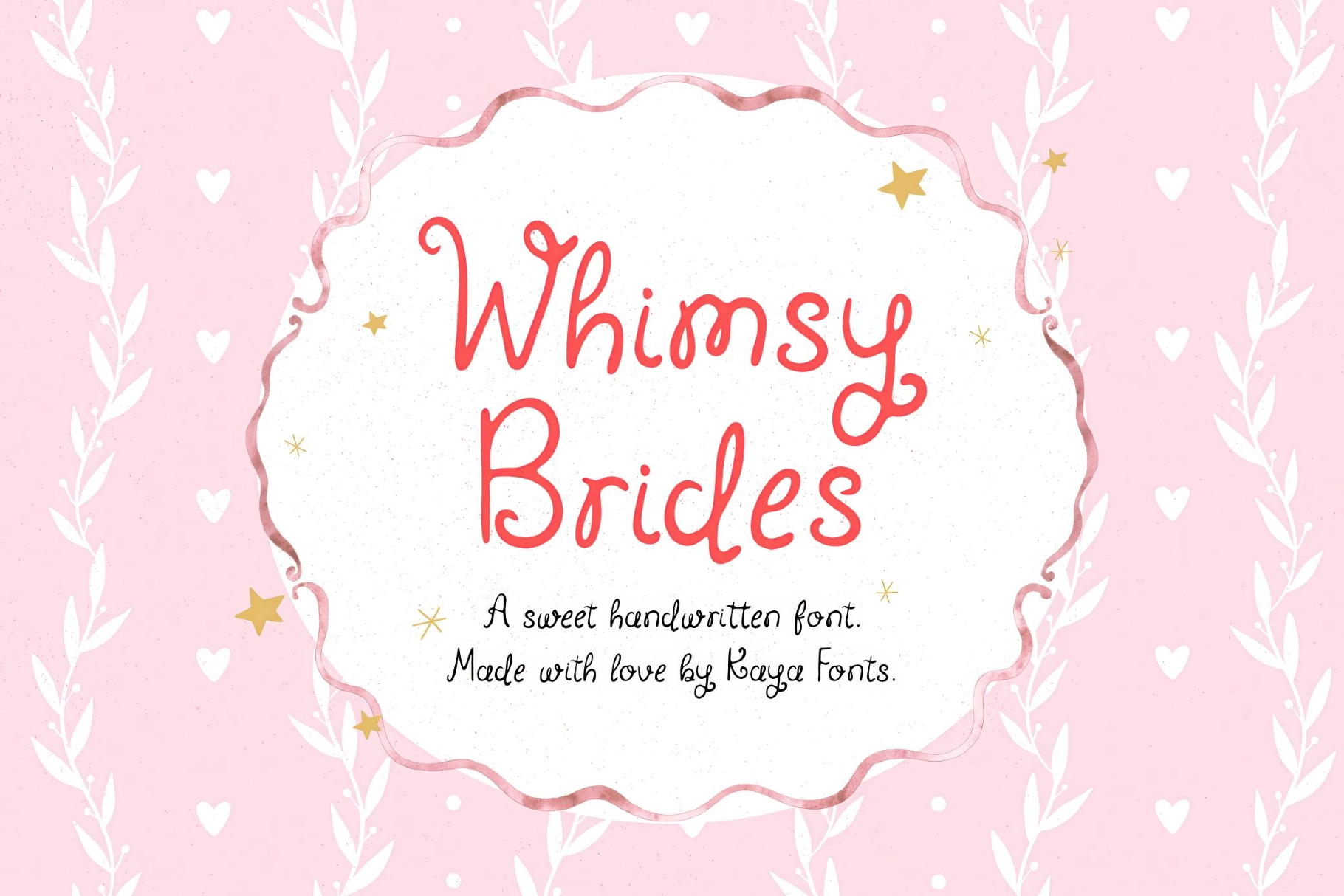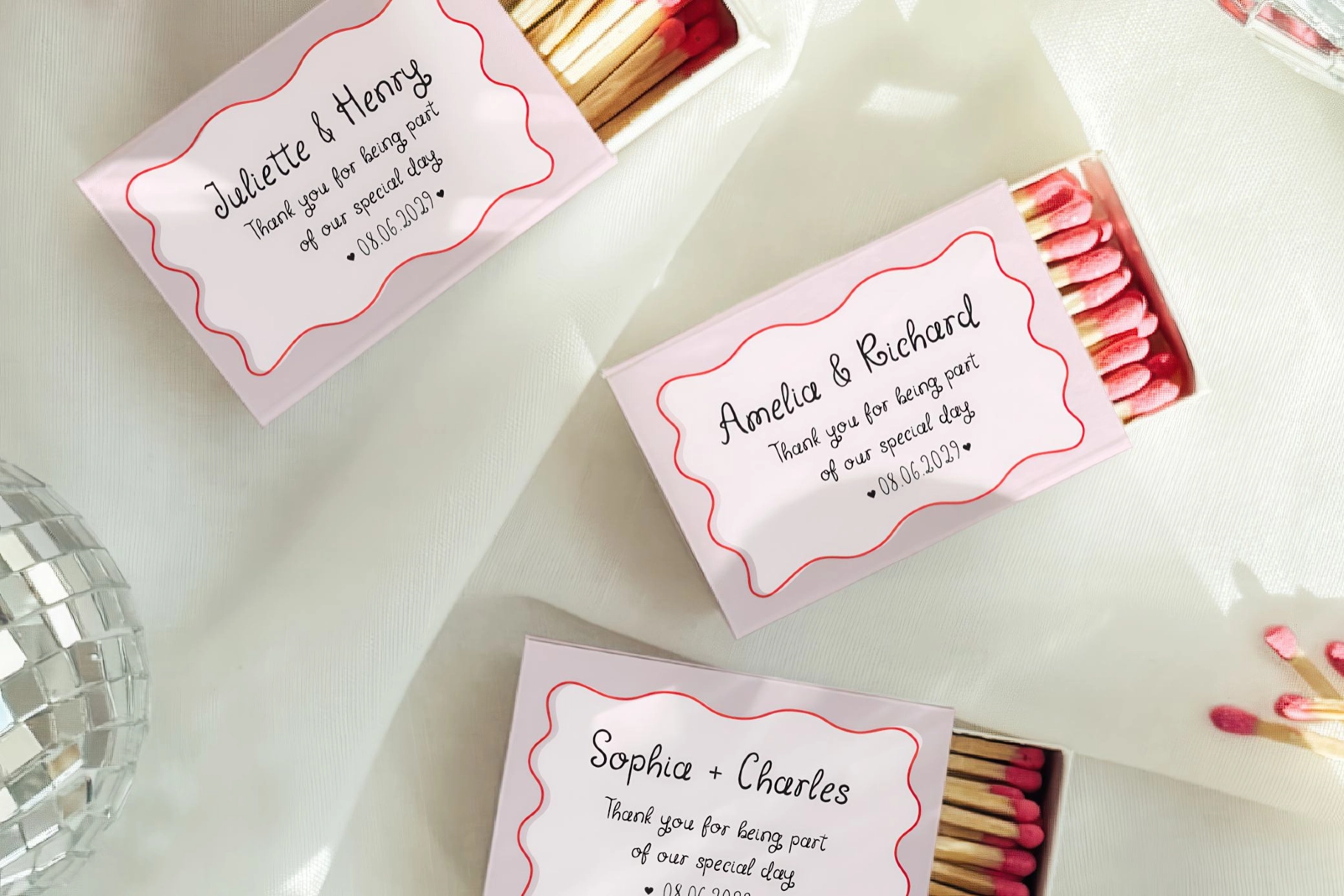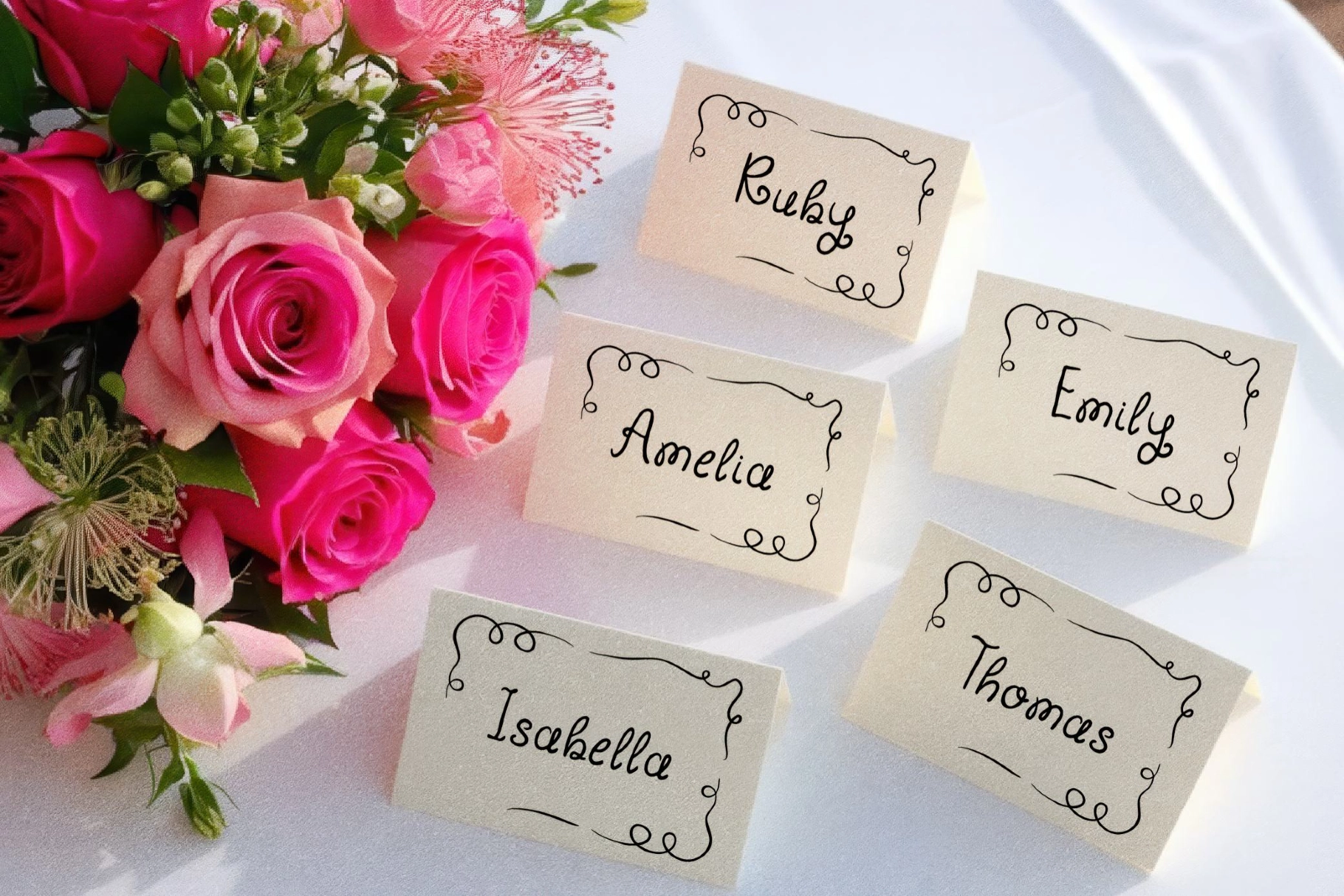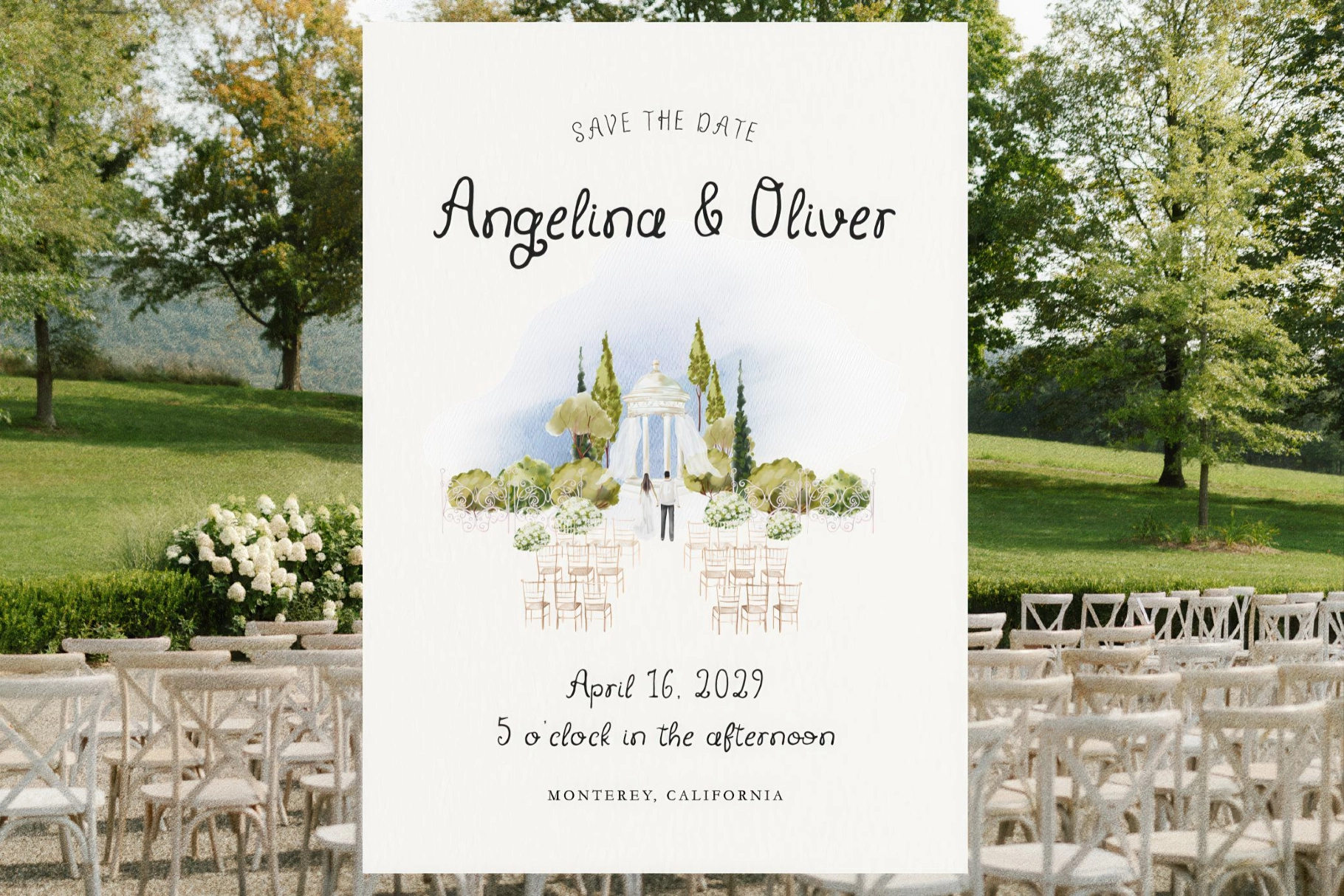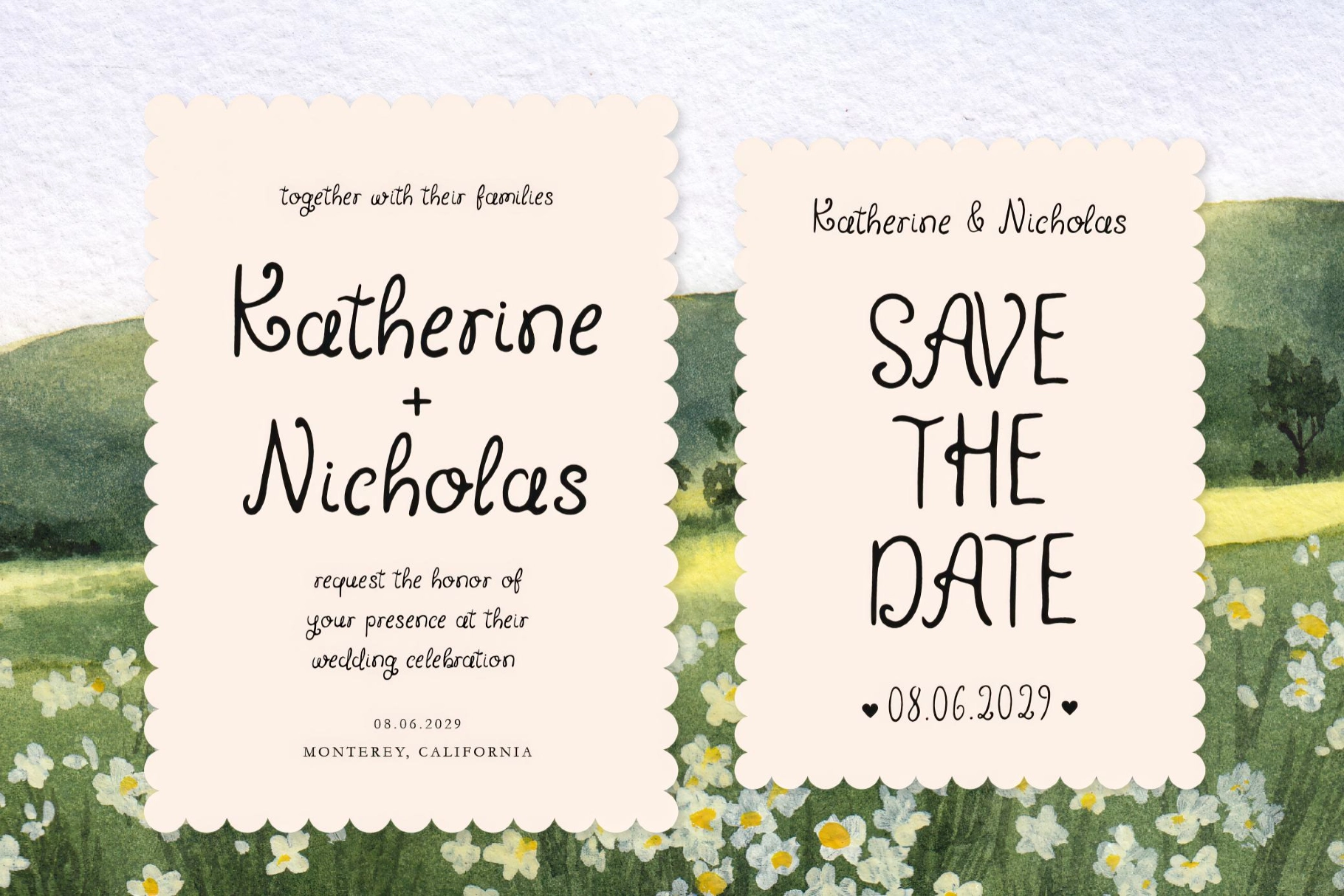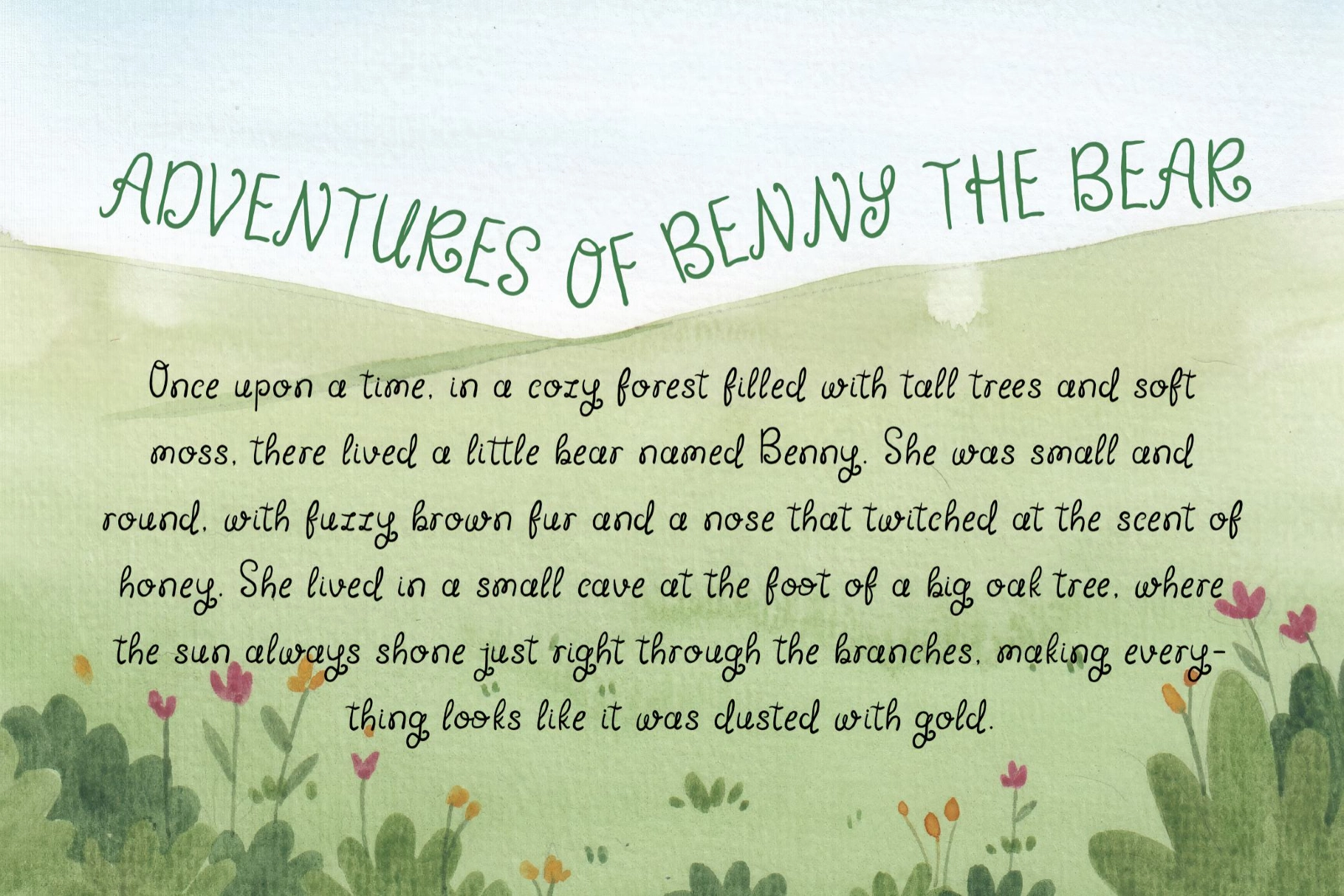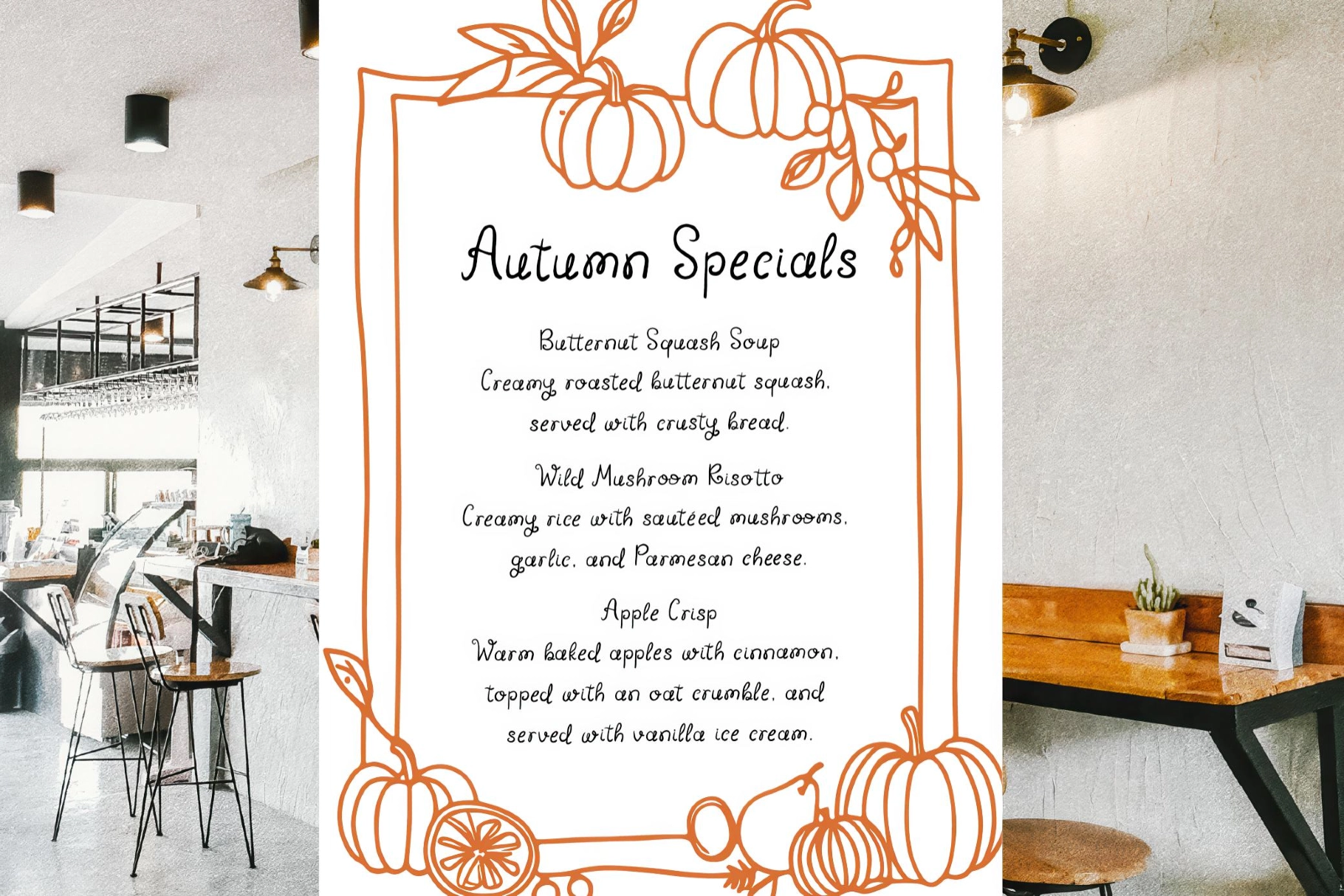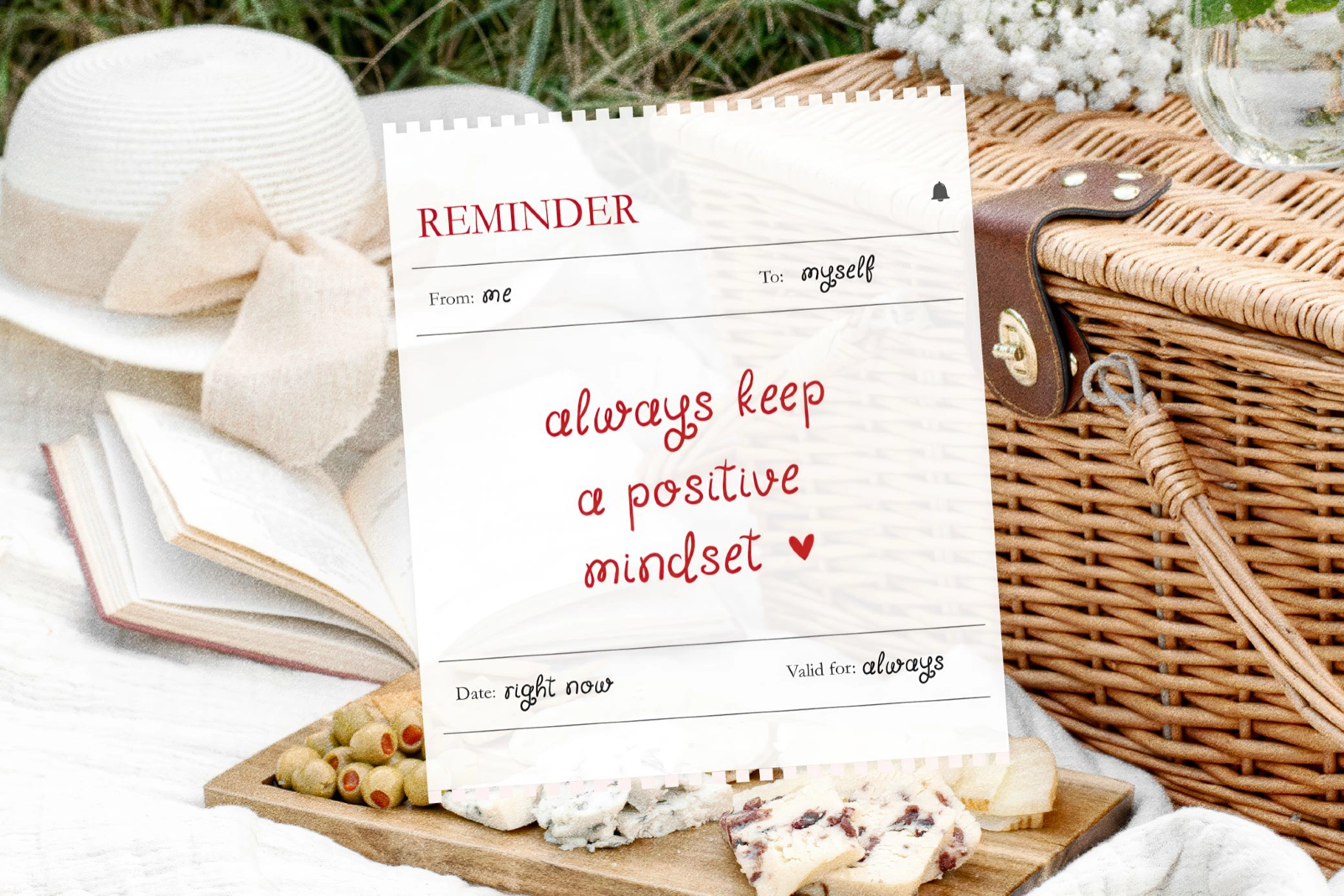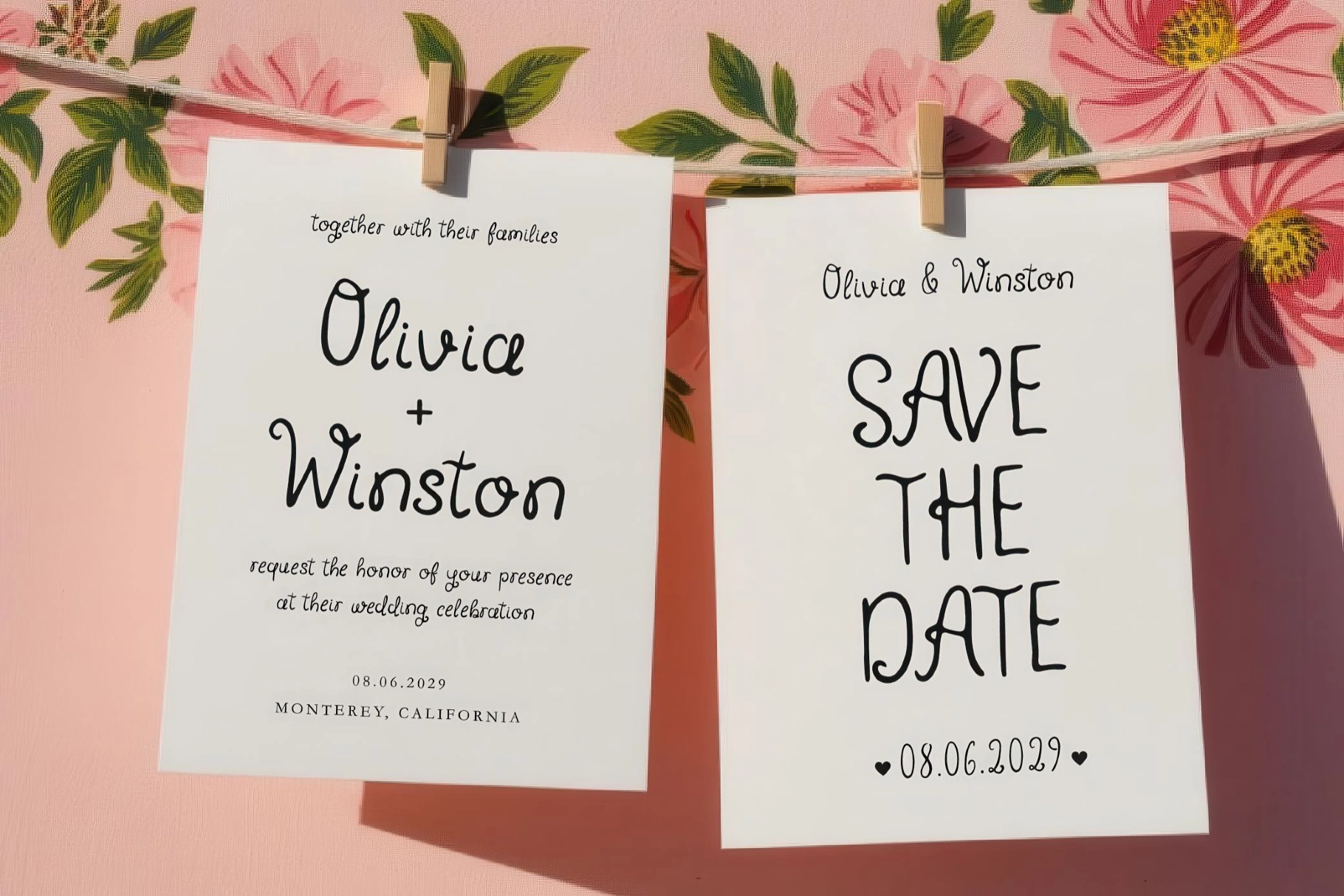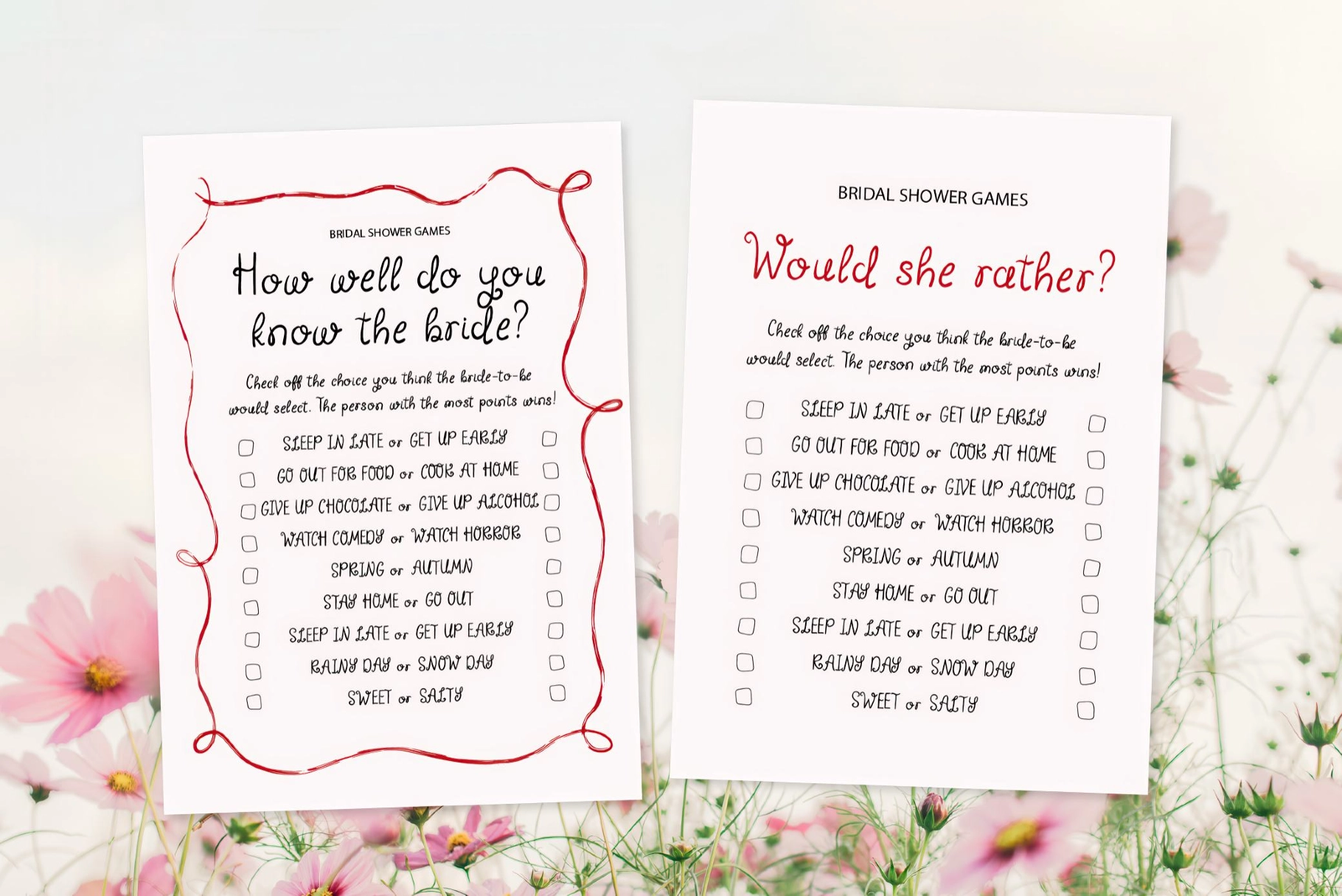
Whimsy Brides - Whimsical Curly Font
Whimsy Brides
Whimsy Brides-Smooth
Whimsy Brides is a whimsical, curly handwritten font with looping terminals and playful tails that curl off the caps and descenders. The ink-pen strokes run light and even, with rounded letters that bounce gently along the baseline. Two versions ship together: a Regular that keeps the natural hand texture and a Smooth cut with a more even stroke.
The ligatures smooth the joins between letters, so the curls connect cleanly, which is useful across long names and menu lines. It reads delicately at headline size and holds its shape down to a place card.
Uses:
- Wedding stationery — save-the-dates, invitations, menus, place cards, vow books.
- Branding and logos — florists, boutiques, bakeries, beauty brands, event studios.
- Packaging design — perfume labels, candle jars, soap wraps, gift boxes, ribbon tags.
- Social content — quote cards, announcement posts, story templates, seasonal promos.
- Stationery and journaling — greeting cards, thank-you notes, journals, gift tags.